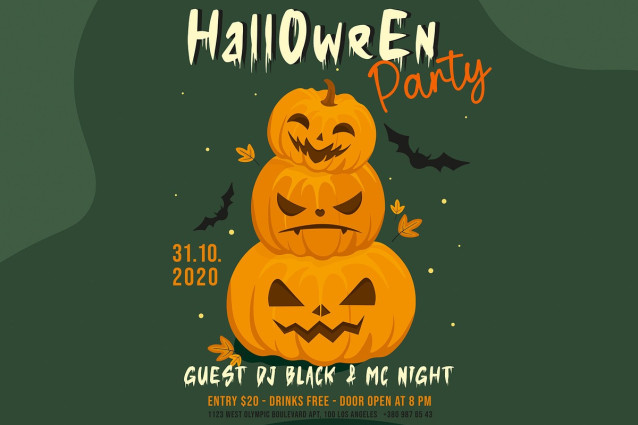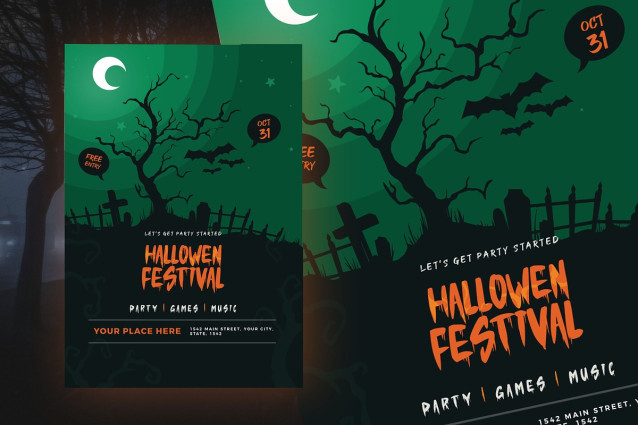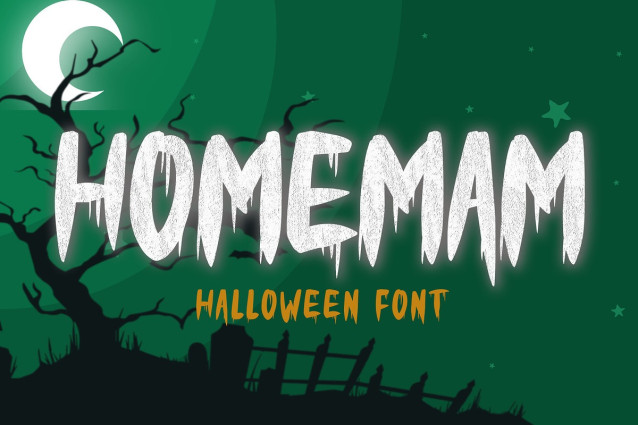
Homemam Halloween Font
Homemam Halloween Font is a horror halloween themed font with a very unique melt-like character. The HOMEMAM font is perfect for halloween card and halloween banner designs. This font is suitable for making previews and covers, logo designs, shirt designs and other graphic needs.